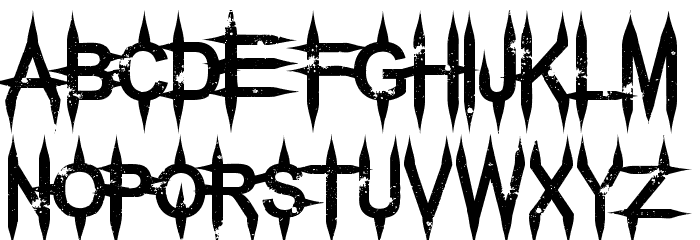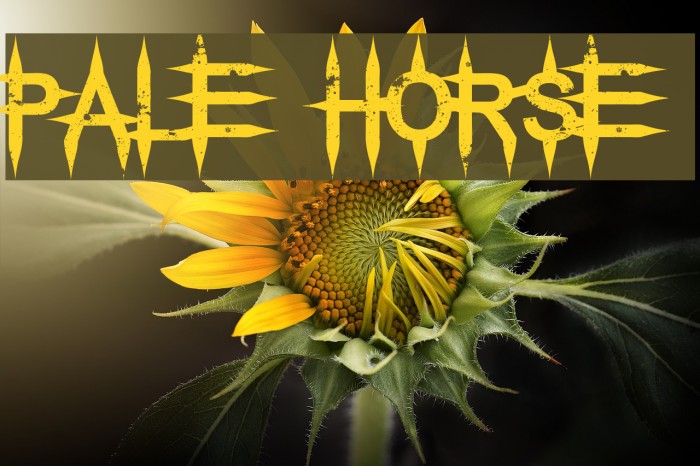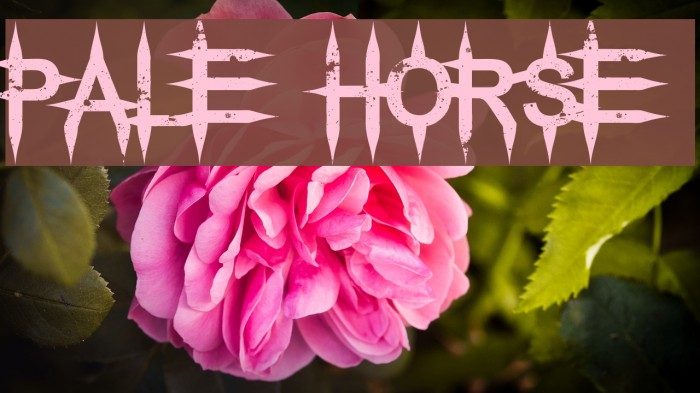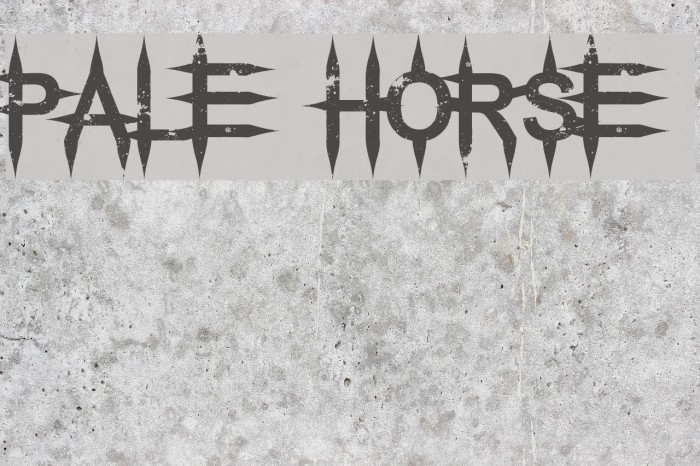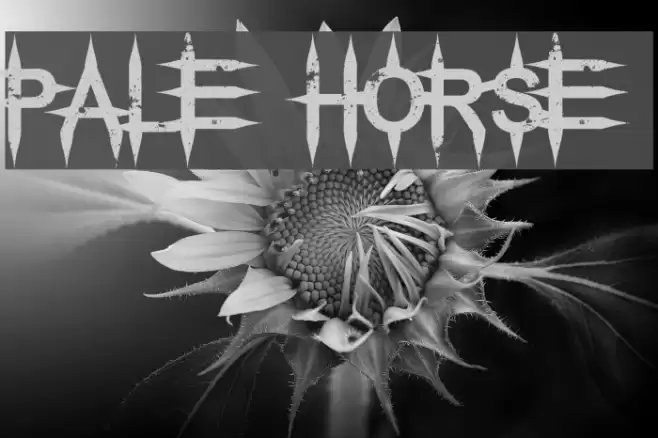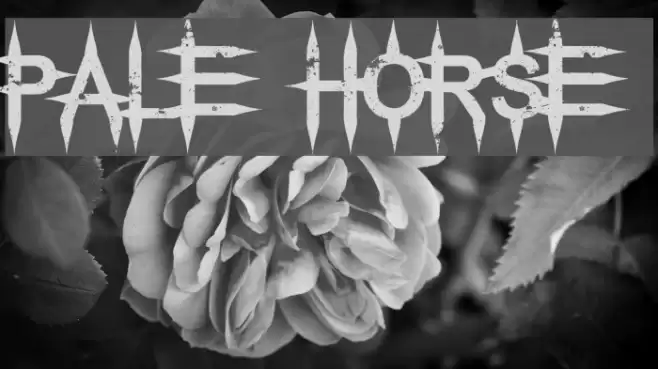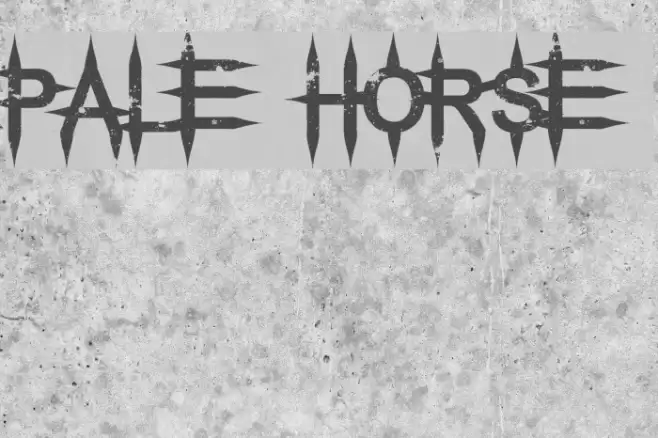
Pale Horse Font
This font features a bold and aggressive design with sharp, pointed edges and a distressed texture that gives it a rugged, grunge appearance. The uppercase letters are uniform in height, with each character exhibiting a unique, spiked aesthetic that resembles barbed wire or thorns. The lack of lowercase letters and numbers suggests a focus on impactful, attention-grabbing text. The font's style is highly decorative, making it suitable for projects that require a strong, edgy visual impact.
A bold, spiked, and distressed decorative font ideal for edgy designs.
- Proposed Projects: Perfect for band posters, album covers, horror-themed graphics, and any project needing a bold, rebellious look.